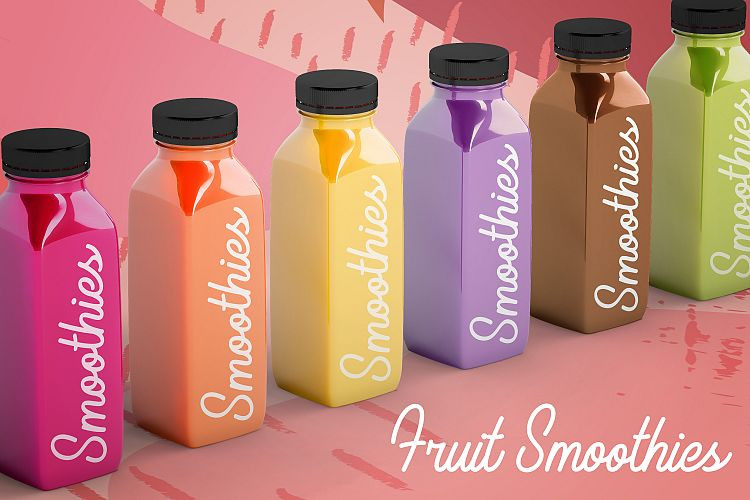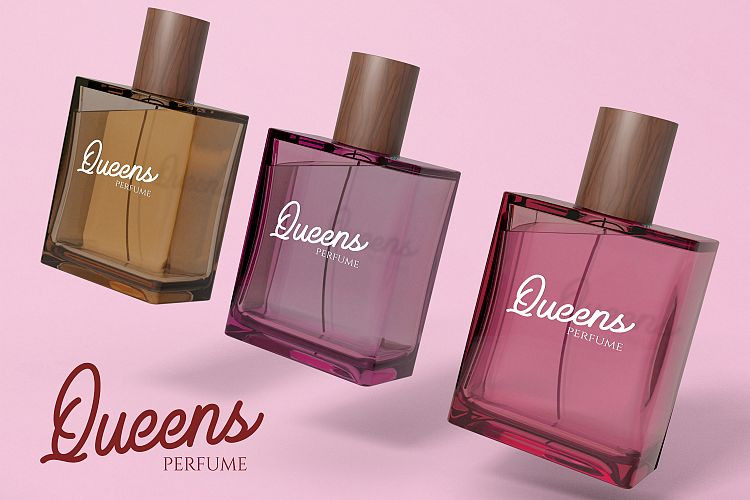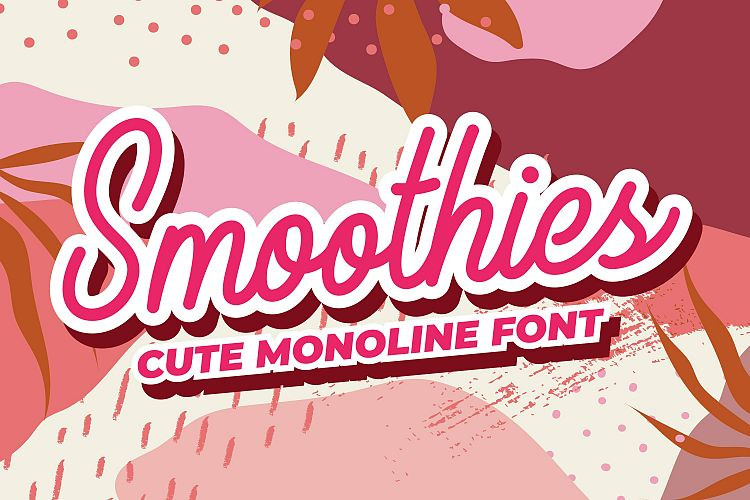
Smoothies Font
This font is a cute and simple monoline. It’s perfectly matched with your brand logo, brand identity, business card, t-shirt & more products. Support multilingual, including more ligatures.